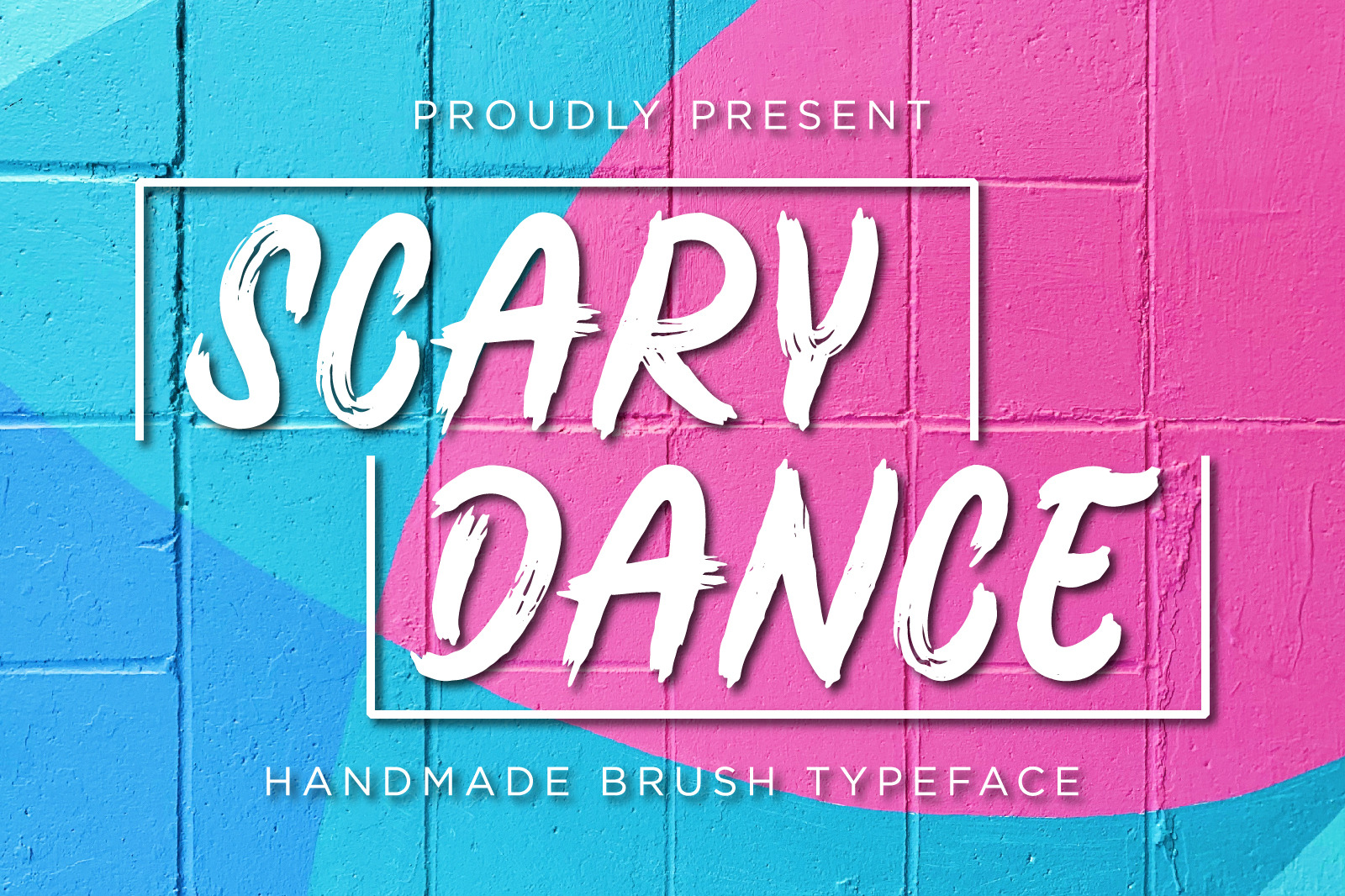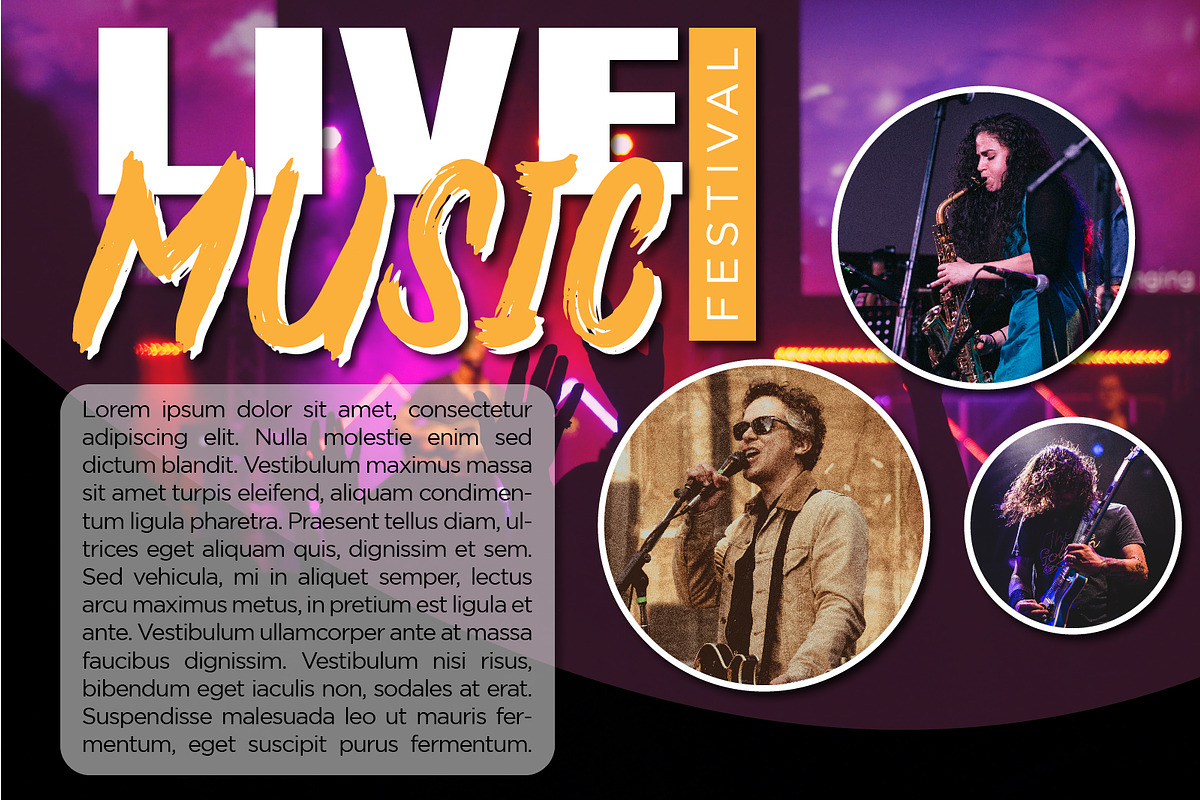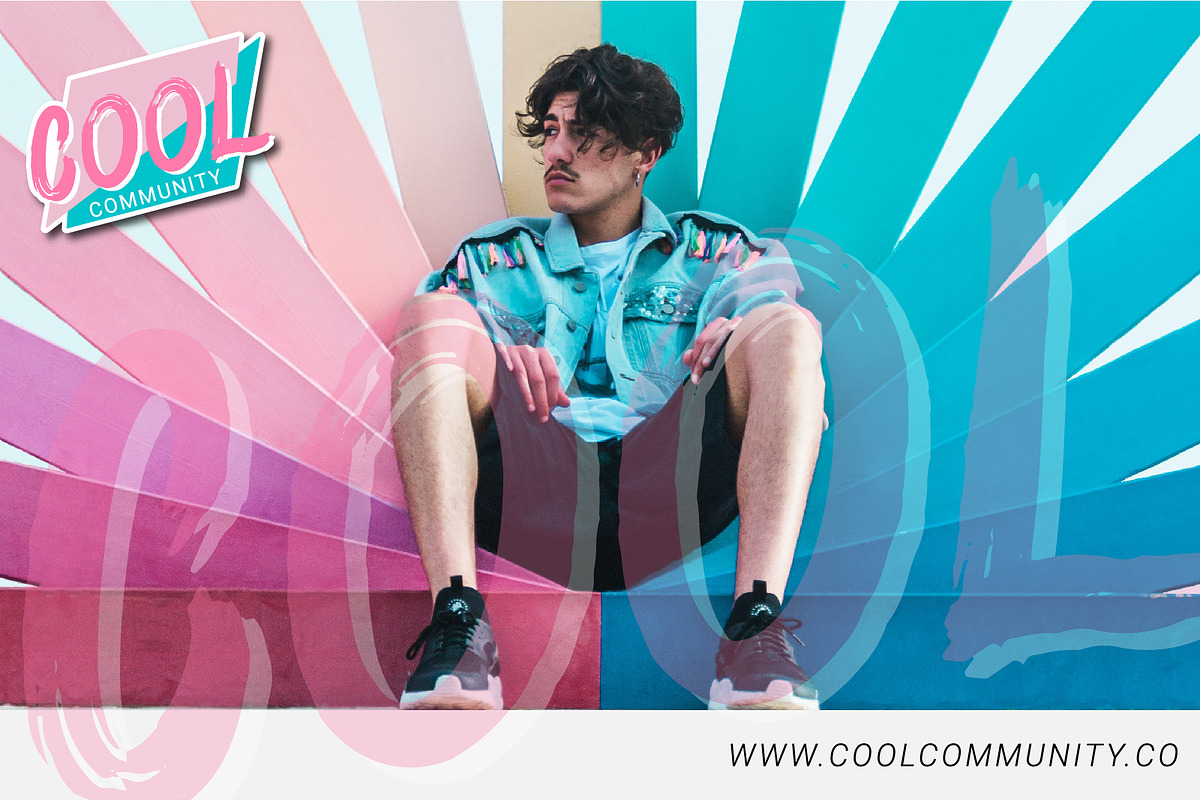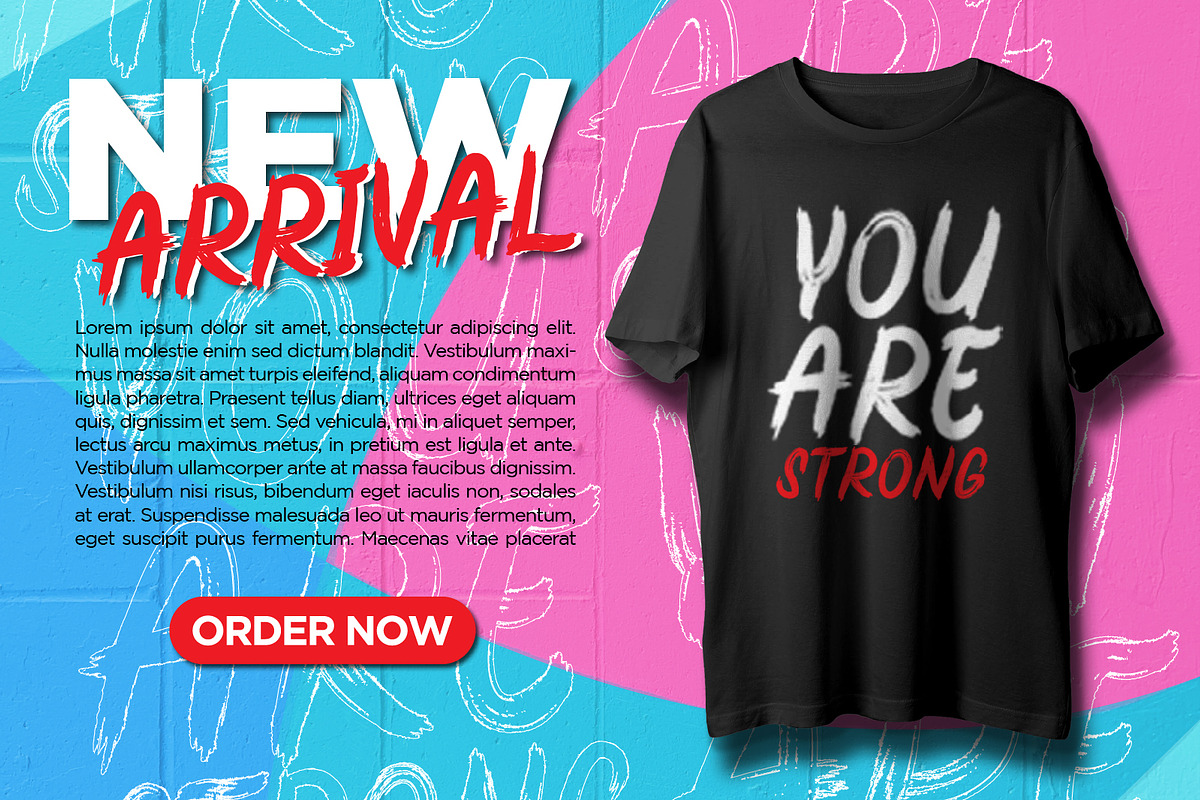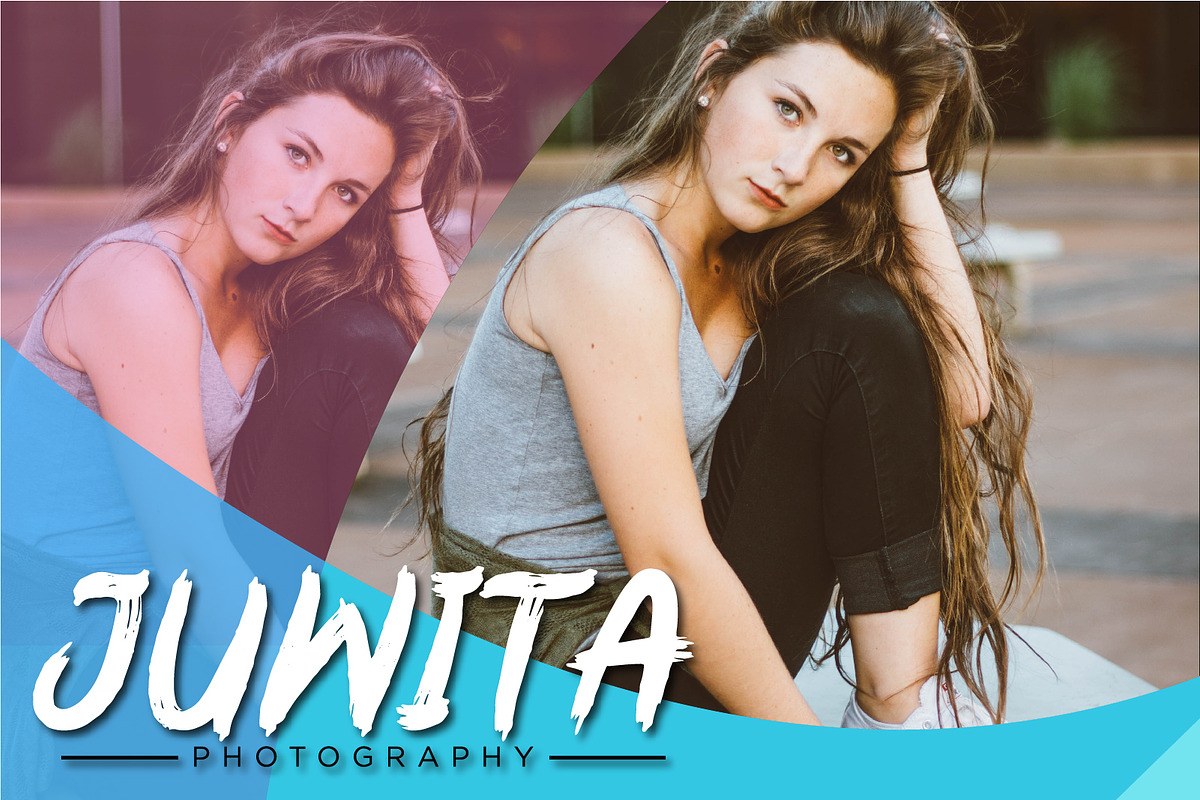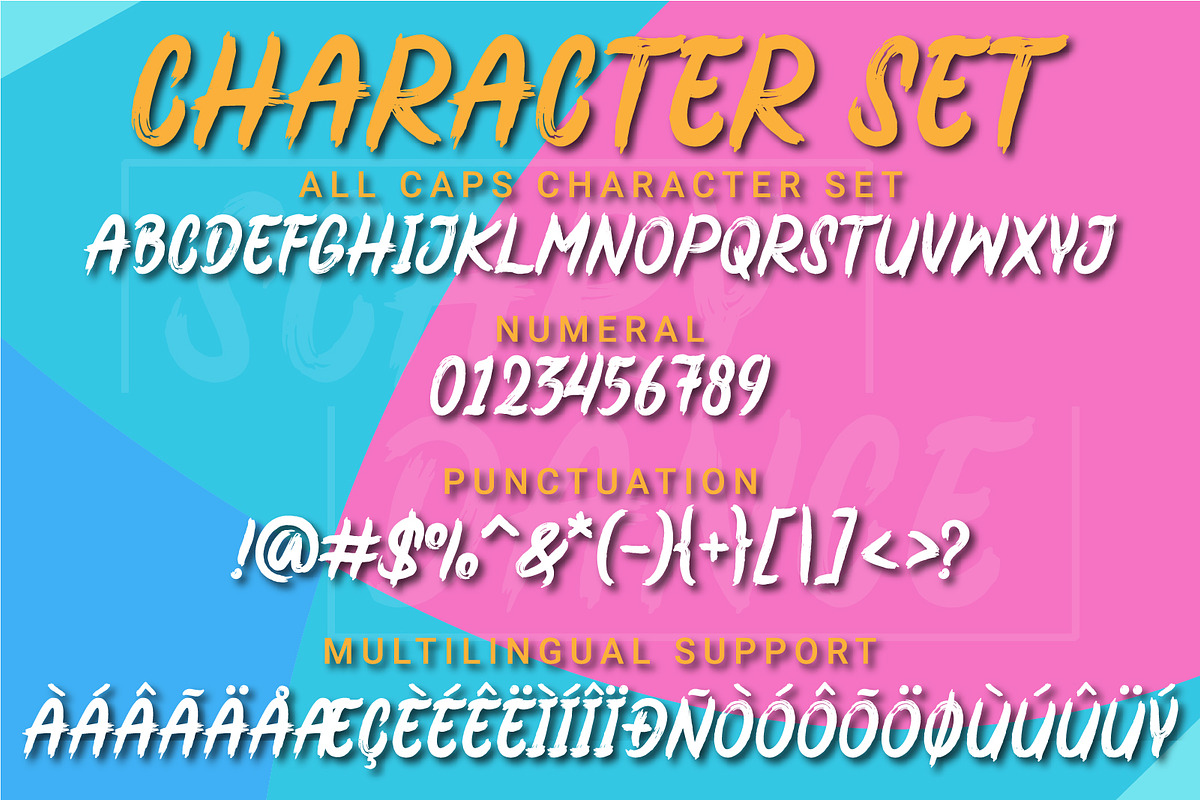
Scary Dance Handmade Brush Typeface
Scary Dance is a cool and bold brushed display font. It embodies playfulness and authenticity and is the perfect choice for any children activity or school project